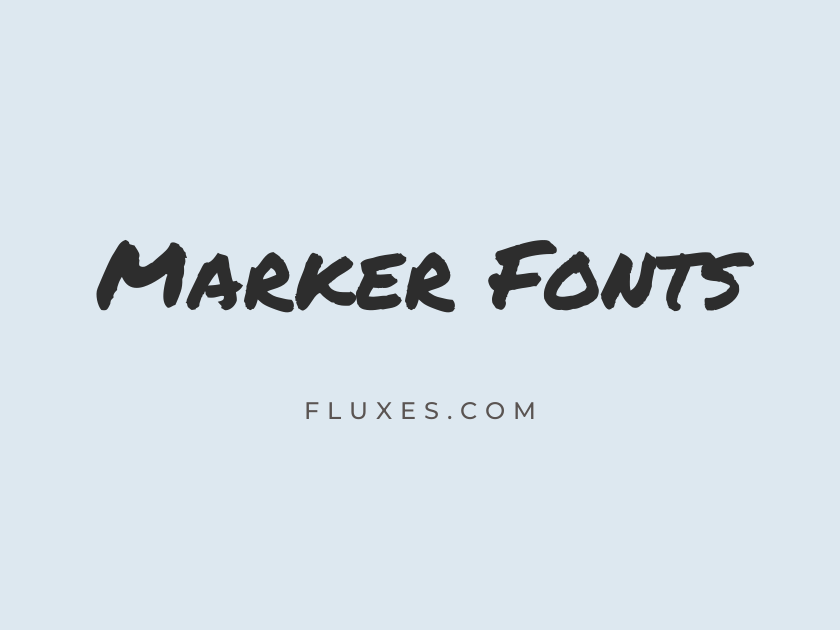
55 Best Marker Fonts
Marker fonts bring a loose, hand-drawn energy that polished sans and serif typefaces simply cannot fake. They work anywhere you want a design to feel spontaneous, friendly, or a little rebellious: sketchnotes, kids’ branding, comic lettering, whiteboard-style explainer videos, packaging that wants to feel handmade, or a poster that needs to shout. Because the style spans everything from a fine felt-tip scrawl to a fat brush-marker swipe, there is a genuinely wide field of free Google Fonts marker fonts to choose from, and picking the right one changes the whole personality of a project.
The list below moves across that whole range, from delicate handwriting markers to chunky comic-book lettering, so you can find something that fits your tone whether you are building a logo, a birthday invite, or a full brand identity.
1. Permanent Marker
The font that basically defined the category on the web. Its uneven, slightly wobbly strokes read as authentically hand-lettered rather than digitally faked, which is why it shows up constantly on sticky notes, chalkboard menus, and casual headlines. It gets muddy at very small sizes, so save it for headings and short bursts of text rather than paragraphs.
2. Caveat Brush
A thicker, brushier cousin to the classic marker scrawl, with visible texture where the tip drags across the page. It suits handwritten quotes, sticky-note graphics, and anywhere a design needs warmth without looking twee.
3. Kalam
Kalam started life as a set of casual Devanagari handwriting styles and its Latin companion carries the same relaxed, rounded confidence. The bold weight in particular reads like a felt-tip note scribbled in a hurry, making it a solid pick for annotation-style callouts on a webpage.
4. Patrick Hand
Clean and legible even at smaller sizes, this one behaves more like tidy handwriting than a loose marker scrawl, which makes it unusually practical for body copy in a playful layout. Think worksheets, recipe cards, or friendly documentation.
5. Patrick Hand SC
The small-caps sibling of Patrick Hand trades lowercase looseness for a row of even, approachable capitals. It is a good choice for labels and short headers where you want the marker feel without any legibility risk.
6. Architects Daughter
Modeled on an architect’s casual print lettering, this face has a technical, sketchbook quality that separates it from softer handwriting styles. It pairs naturally with diagrams, wireframes, and anything presenting itself as a rough draft or a work in progress.
7. Indie Flower
Round, bouncy, and instantly recognizable, Indie Flower has become a shorthand for approachable, DIY-feeling design. It works best in short phrases; long passages start to feel busy because of how much each letter bounces off the baseline.
8. Covered By Your Grace
Soft-edged and unhurried, this one feels closer to a gel pen than a marker, but its casual rhythm still fits comfortably alongside bolder marker styles in a layout. Nice for greeting-card type sentiments and personal, warm messaging.
9. Gochi Hand
A thin, tidy scrawl with just enough imperfection to feel human. It reads well in sticky-note graphics and app onboarding illustrations where a large chunk of marker lettering would be too heavy.
10. Schoolbell
Chunky and slightly childlike, Schoolbell leans into a classroom chalkboard mood rather than a polished marker look. It is a natural fit for education products, kids’ apps, and anything referencing school supplies.
11. Short Stack
Its short x-height and casual baseline wobble give it the feel of a fast note jotted between meetings. Good for UI microcopy that wants a human touch without sacrificing readability.
12. Handlee
Rounded and consistent, Handlee sits closer to legible cursive handwriting than to a loose marker doodle, which makes it a dependable choice for longer runs of casual text. It reads warmly on invitations and personal blogs alike.
13. Neucha
Originally developed for Cyrillic script, Neucha’s Latin set carries the same relaxed, slightly compressed handwriting feel. It works nicely for chat interfaces and comment sections that want a friendly, informal voice.
14. Sriracha
Despite the cheeky name, this is a genuinely useful thick-marker script with confident, rounded strokes. It suits food branding, casual restaurant signage, and packaging that wants a spicy, energetic edge.
15. Just Another Hand
Just another note, just another doodle
Condensed and a bit scrappy, this face packs more characters per line than most marker fonts, which makes it handy for longer handwritten-style captions. It has a teenage-notebook charm that suits zines and casual editorial layouts.
16. Walter Turncoat
Sketchbook sketches and secondhand stories
Walter Turncoat
A slightly rougher, more irregular marker style with visible character variation from letter to letter. It fits comic panels, storybook illustrations, and anything wanting a hand-inked, slightly worn feel.
17. Gloria Hallelujah
Draw outside the lines, always
Gloria Hallelujah
Loose and doodly, with letterforms that feel drawn rather than written, Gloria Hallelujah suits illustration-heavy sites and kids’ content. It is best kept to display sizes; the exaggerated shapes lose clarity in dense paragraphs.
18. Annie Use Your Telescope
Look closer at the small details
Annie Use Your Telescope
A bold, upright marker hand with thick, confident strokes and a friendly, slightly clumsy charm. It reads well in short headlines and works nicely alongside cleaner sans-serif body text.
19. Crafty Girls
Handmade crafts made just for you
Crafty Girls
Playful and a touch wobbly, this one leans firmly toward scrapbook and craft-project aesthetics rather than clean lettering. Reserve it for accents and titles rather than anything that needs to be read quickly.
20. Waiting for the Sunrise
Early morning notes before the coffee
Waiting for the Sunrise
An unusual, slightly rougher marker script with irregular baseline movement that gives it a sleepy, unpolished charm. It suits journaling apps and personal, diary-style content.
21. Coming Soon
Something new is on the way
Coming Soon
Even, friendly, and easy to read at a glance, Coming Soon works well for announcement banners and “under construction” style messaging, living up to its name. It has less texture than a true marker font, which actually helps it stay legible in longer strings.
22. Reenie Beanie
Quick thoughts jotted in the margin
Reenie Beanie
Thin and fast-looking, as if dashed off in a single breath, this script suits marginal notes, quote call-outs, and anything wanting a casual, unpolished aside. It is not the font for anything that needs to feel considered or formal.
23. Nanum Pen Script
Handwritten letters sent across the world
Nanum Pen Script
Developed as part of a Korean type project, Nanum Pen Script has a smooth, confident pen-and-marker hybrid quality that reads cleanly in both Latin and Hangul. It is a dependable option for multilingual projects that need a consistent handwritten voice.
• Language support: Latin, Korean
24. Nanum Brush Script
Brushstrokes that bleed across the page
Nanum Brush Script
A heavier, more painterly sibling to Nanum Pen Script, with visible bristle texture and dramatic stroke contrast. It brings a calligraphic, East Asian brush-lettering sensibility that stands apart from the felt-tip look of most Western marker fonts.
• Language support: Latin, Korean
25. Homemade Apple
Baked fresh with a personal touch
Fine-lined but distinctly handwritten, this one sits between a marker and a pen, with a homey, unpretentious warmth that suits bakery branding and craft product packaging.
26. Delius
Simple notes, drawn in a hurry
Delius
Rounded, chunky, and refreshingly plain, Delius avoids the exaggerated flourishes of most marker fonts in favor of a steady, childlike consistency. It holds up surprisingly well at smaller sizes for a display face of this style.
27. Mali
Warm handwriting for every occasion
Mali
Originally built for Thai, Mali’s Latin glyphs carry a soft, rounded marker quality with generous curves. The bold weight adds enough heft to work as a standalone headline font rather than just an accent.
28. Itim
Casual doodles, drawn with care
Itim
Compact and evenly weighted, Itim has a tidy, controlled marker feel that reads more like careful lettering than a rushed scrawl. It is a solid, understated choice when other marker fonts feel too chaotic for the layout.
29. Gaegu
Cute notes scribbled between classes
Gaegu
Rounded and slightly bubbly, Gaegu has a youthful, notebook-margin charm that suits casual branding aimed at a younger audience. The bold cut holds its shape nicely in buttons and short UI labels.
• Language support: Latin, Korean
30. Poor Story
Every sketch tells its own story
Poor Story
An irregular, hand-inked marker face with plenty of personality in its uneven stroke widths. It works best in short, expressive headlines rather than passages of running text.
• Language support: Latin, Korean
31. Yomogi
A brush-drawn note, left behind
Yomogi
Soft and slightly textured, as though drawn with a worn felt tip, Yomogi has a gentle, unhurried quality that suits lifestyle and wellness branding looking for a handmade touch.
• Language support: Latin, Latin Extended, Cyrillic, Japanese, Vietnamese
32. Chilanka
Sketched thoughts from a quiet notebook
Chilanka
Originally created for Malayalam, its Latin companion carries a relaxed, rounded handwriting rhythm that reads comfortably even in longer stretches of casual copy.
• Language support: Latin, Latin Extended, Malayalam
33. Fuzzy Bubbles
Bubbly notes with a soft edge
Fuzzy Bubbles
Rounded almost to the point of looking inflated, this face has a soft, marker-on-whiteboard quality that suits kids’ products, comics, and playful app interfaces. The bold weight is chunky enough to anchor a logotype on its own.
34. Bangers
POW! Comic lettering hits the page
Loud, blocky, and built for impact, Bangers channels vintage comic-book sound effects rather than everyday handwriting. It is a go-to for pull quotes, badges, and anything that needs to shout in all capitals.
35. Luckiest Guy
BIG BOLD LETTERS FOR BIG NEWS
Thick, rounded, and unapologetically chunky, Luckiest Guy reads like a marker outline filled in with a second pass of color. It dominates a page at large sizes, so use it sparingly and let it carry a single strong headline rather than competing paragraphs.
36. Boogaloo
Groovy signage for a retro diner
A bold, bouncy display face with a retro, hand-painted-sign quality reminiscent of vintage diner menus and roller-rink posters. It brings personality to short headlines without tipping into full comic-book chaos.
37. Chewy
Snacks so good you'll ask twice
Rounded, puffy, and genuinely fun, Chewy has a candy-shop, kid-friendly energy that suits snack packaging, game logos, and playful app icons. It is not built for subtlety, and that is entirely the point.
38. Titan One
Outlined letters ready for color
A heavyweight display face with a bold outline effect that mimics a marker-drawn bubble letter filled in afterward. It works best as a hero headline font, paired with something quieter and more restrained for supporting text.
39. Passion One
Big statements need big letters
Rounded and sturdy, Passion One reads like a permanent marker used to fill in poster lettering rather than write it out casually. The bold weight suits banners and campaign headlines that need presence without going full comic style.
40. Sniglet
Soft, rounded, and impossible to ignore
Puffy and friendly, with corners so rounded they almost disappear, Sniglet feels like it was drawn with a dry-erase marker on a whiteboard. It is particularly effective for kids’ branding and casual, upbeat UI elements.
• Styles: 2 weights (Regular, Extra-Bold)
41. Baloo 2
Rounded headlines with real weight
Part of a large rounded type family, Baloo 2 brings a sturdy, marker-thick weight along with genuinely excellent legibility, which is rarer than it sounds in this category. It works as comfortably in an app interface as it does on a poster.
42. Fredoka
Friendly rounded type for modern brands
Contemporary and geometric compared to most of this list, Fredoka has a soft marker-drawn roundness that reads as friendly rather than childish. It pairs nicely with a plainer sans-serif body font for a balanced, approachable brand system.
43. Freckle Face
Speckled letters with a playful bounce
Freckle Face
Its slightly speckled, uneven stroke edges give it a hand-stamped, marker-on-textured-paper look that stands out from smoother display faces. Best used sparingly, as a title treatment rather than for extended text.
44. Kaushan Script
Sign your name with real flair
A confident brush-marker script with sweeping, energetic strokes that feel like they were laid down in one continuous motion. It brings a lively, expressive signature quality to logos and headline treatments.
45. Yellowtail
Cursive brushwork for a warm welcome
Smooth and rounded, Yellowtail sits at the gentler end of brush-marker scripts, with connected letterforms that flow easily. It suits invitations, cafe signage, and branding that wants warmth without excess drama.
46. Pacifico
Surf shop vibes, hand-lettered fresh
Born from 1950s American surf culture lettering, Pacifico has a laid-back, brush-marker looseness that has made it one of the most widely used script fonts on the web. Its familiarity is a genuine strength for casual, friendly branding, though that same ubiquity means it may not feel distinctive in a crowded niche.
47. Bilbo
A brush-drawn signature, just for you
Bilbo
Delicate for a brush script, with thin connecting strokes and a slightly old-fashioned charm. It works nicely in wedding stationery and greeting cards that want a marker-brush feel without heavy weight.
48. Comforter
Soft brushstrokes for a gentle note
Comforter
An unusual, textured brush script with a slightly rough, hand-inked quality that separates it from smoother cursive scripts. It reads best in short phrases set at a generous size.
49. Comforter Brush
Bold brush marks, drawn with confidence
Comforter Brush
A heavier, more dramatic variant of Comforter, with thicker strokes and more visible brush texture. It suits expressive branding moments where a single word needs to carry real visual weight.
50. Redressed
Rewritten in a bold new hand
Redressed
Chunky and upright, with a marker-thick stroke that stays legible even at moderate sizes. It has a slightly retro, hand-painted-sign character that suits vintage-inspired branding.
51. Swanky and Moo Moo
Playful brush lettering with real swagger
Swanky and Moo Moo
Loose, wide, and full of personality, this brush script leans theatrical rather than tidy, making it a fun choice for event posters and playful headline treatments.
52. Alex Brush
Elegant strokes with a marker's edge
Thinner and more refined than most fonts on this list, Alex Brush bridges the gap between calligraphy and brush marker, useful when a project wants expressive lettering without the full weight of a felt-tip look.
53. Amatic SC
Whiteboard notes, condensed and confident
Tall, narrow, and slightly rough around the edges, Amatic SC has the look of quick capital letters scrawled with a thin whiteboard marker. It is enormously popular for headlines precisely because it stays readable while still feeling hand-drawn.
• Language support: Latin, Latin Extended, Cyrillic, Hebrew, Vietnamese
54. Caveat
Everyday handwriting, digitized and dependable
One of the most versatile handwriting fonts on Google Fonts, Caveat’s bold weight has just enough marker-like heft to anchor a heading while staying genuinely legible in longer runs of text.
55. Dekko
Casual handwriting for casual moments
Dekko
Wide, rounded, and unfussy, Dekko has an easygoing, notebook-doodle quality without excessive stroke variation, making it a safe, readable pick when other marker fonts feel too erratic.
Pairing and Using Marker Fonts Well
Marker fonts are display fonts first. Keep them for headlines, quotes, badges, and short callouts, and hand paragraph text to a plain, legible sans-serif or serif.
Contrast is what sells the effect. A rough, hand-drawn headline next to a clean, structured body font feels intentional; two loose handwriting styles stacked together just feels messy.
Watch your sizing. Many of these fonts lose their charm, or their legibility, below about 16 to 18 pixels, so test at the actual size your design will use.
Limit yourself to one marker font per layout in most cases. A single well-chosen scrawl or brush stroke reads as a considered design choice; three competing hand-lettered styles on one page reads as indecision.